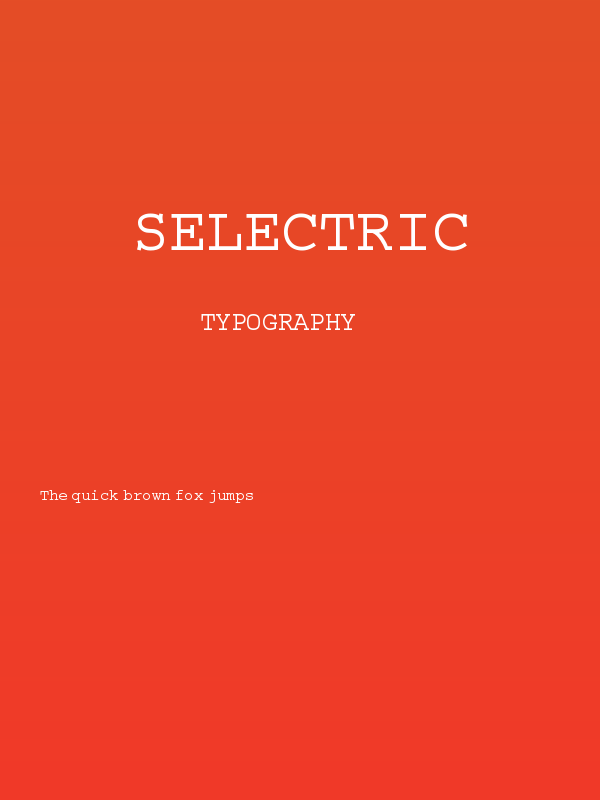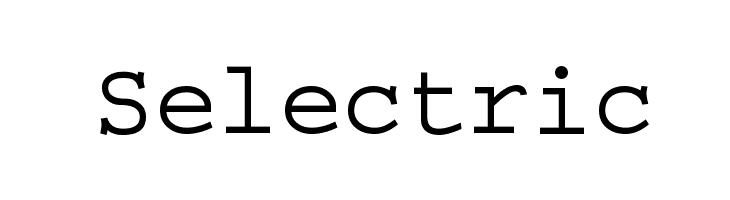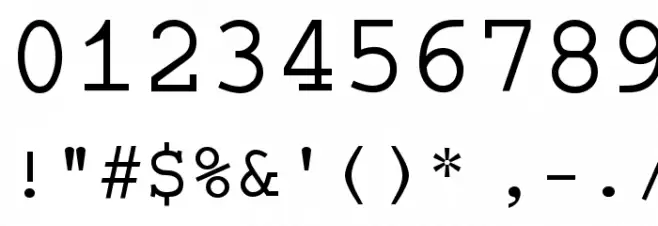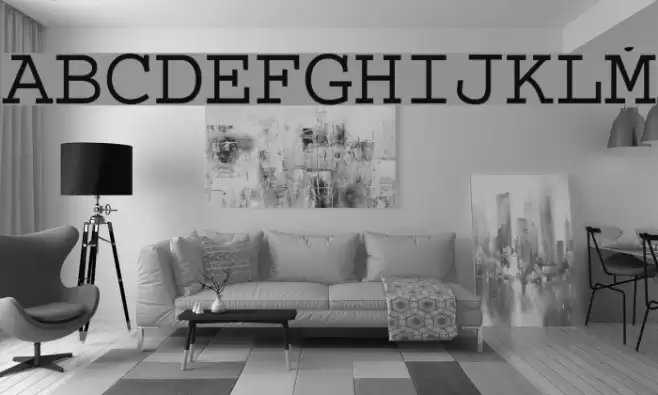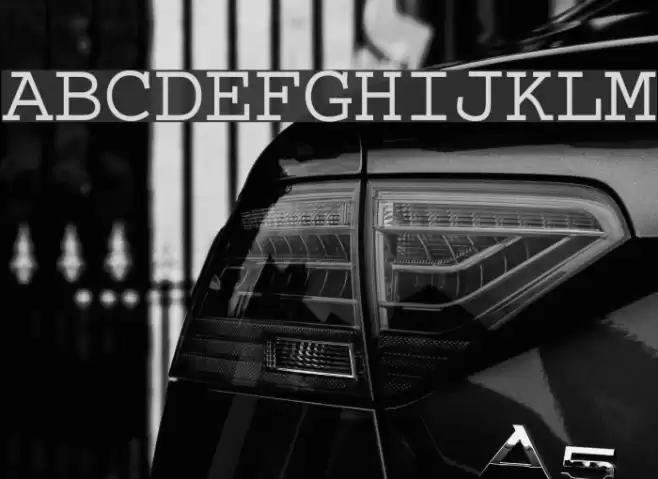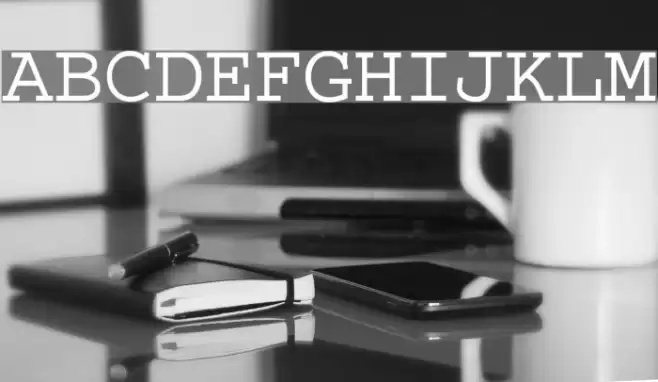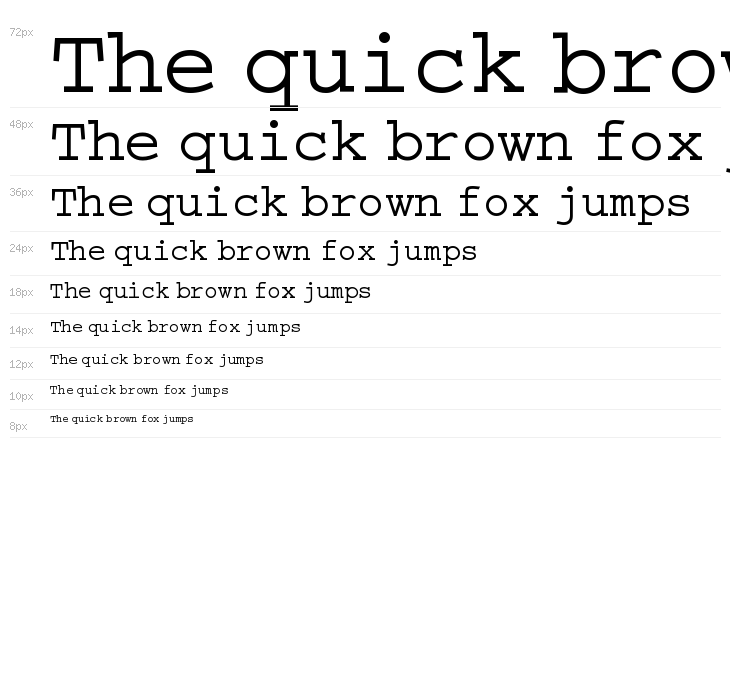
Selectric Font
| Gesamtstil | Vintage |
| Anwendungsfall | Coding, Retro designs, Branding |
| Vorgeschlagene Projekte | Ideal for projects requiring a vintage or retro aesthetic, such as typewriter-themed designs, coding interfaces, or retro branding. |